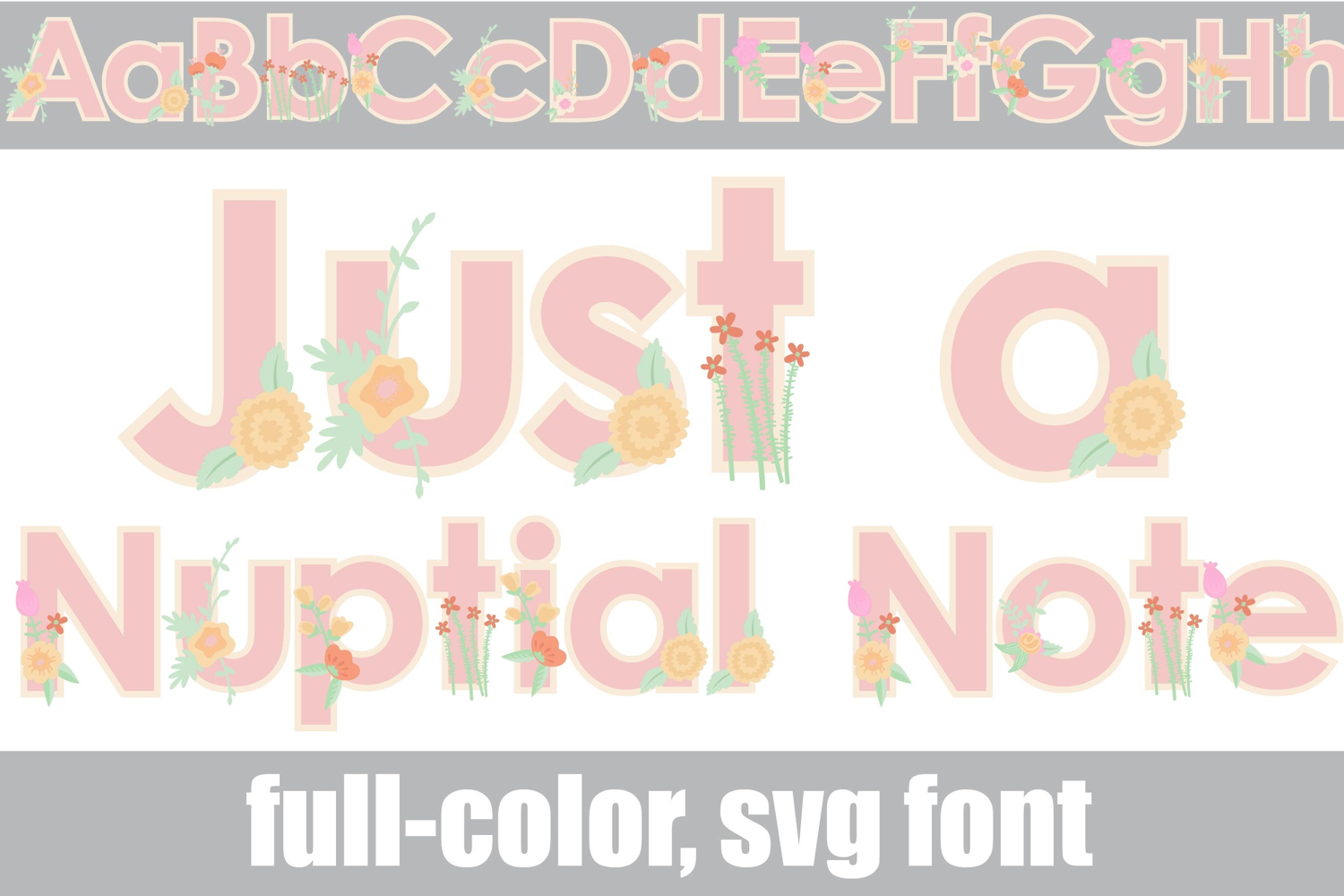
Just a Nuptial Note Color Font
This full-color, sans serif font sports pastel florals. There is an alt case of additional colors of each letter that you can access through your system's character map.